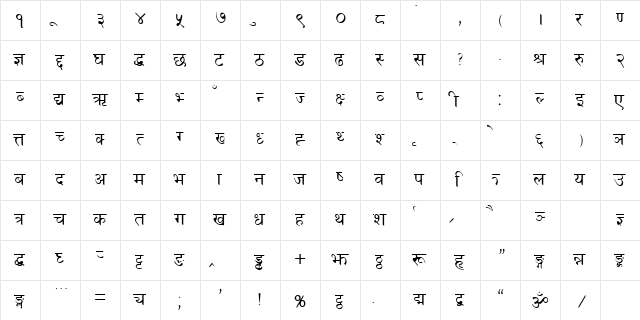
Preeti Normal
Design Context for Preeti Typeface
Preeti takes a measured approach to typography — its balanced proportions and neutral character make it a reliable workhorse for both digital and print work.